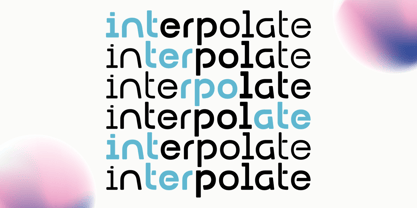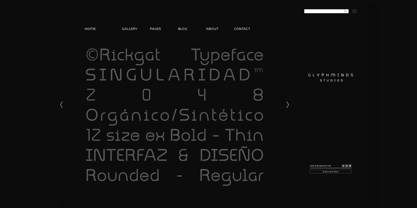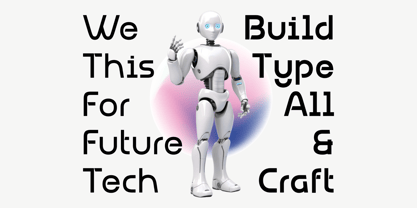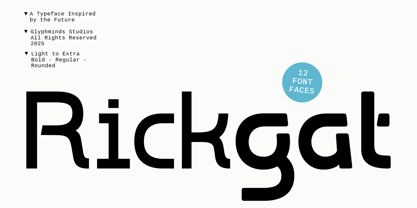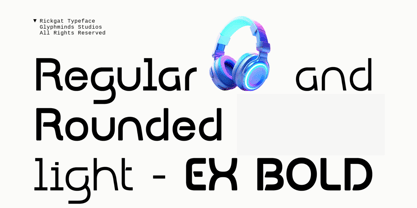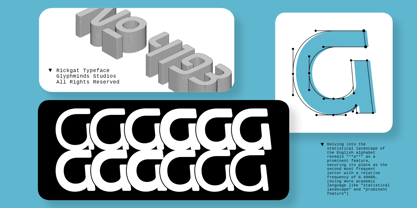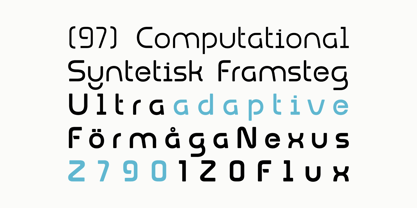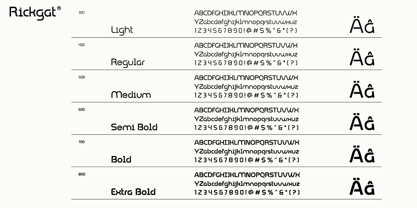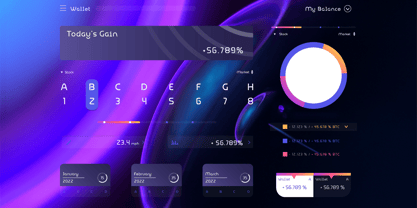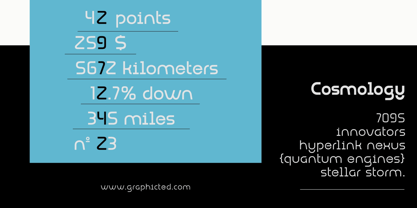
Rickgat
The Rickgat Font Family was designed by Baliya Ibnu Bi Malkan and published by Glyphminds Studios. Rickgat contains 12 styles and family package options. More about this family
Step into the future of typography with Rickgat, a bold and visionary sans serif typeface crafted for modern creators.
Designed by Glyphminds Studios, Rickgat features 12 unique font styles ranging from Light to Extra Bold, with Rounded and Standard versions to cover every creative scenario — whether you're designing cutting-edge websites, tech brands, futuristic logos, or clean editorial layouts.
With its geometric structure and subtle rounded edges, Rickgat strikes the perfect balance between sleek minimalism and expressive form. A must-have typeface for designers who want to make a forward-looking impression.
Full range: Light, Regular, Medium, Semi Bold, Bold, Extra Bold + Rounded options
Make your next project future-ready with the versatile power of Rickgat.